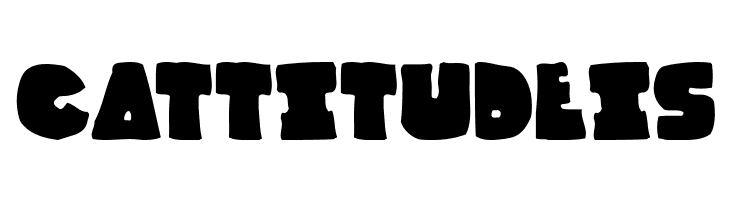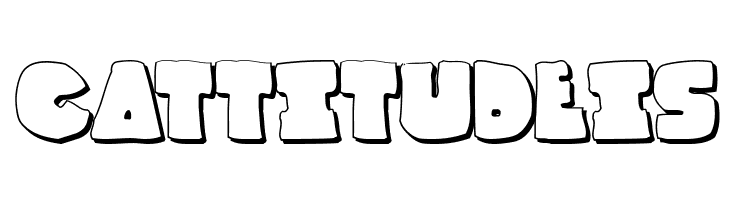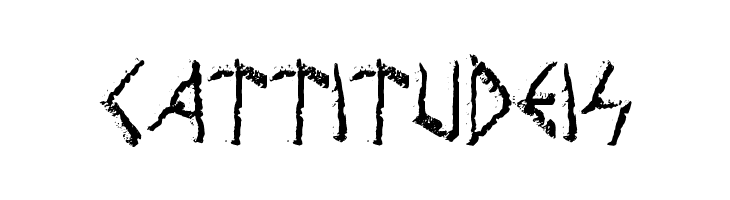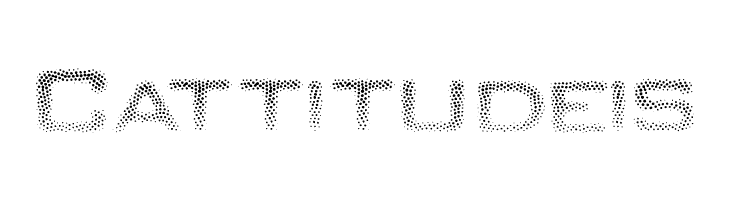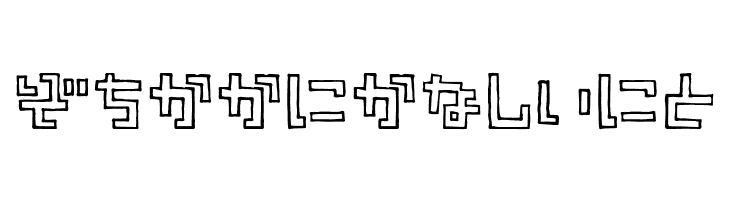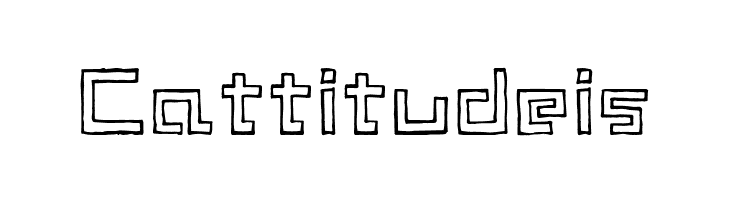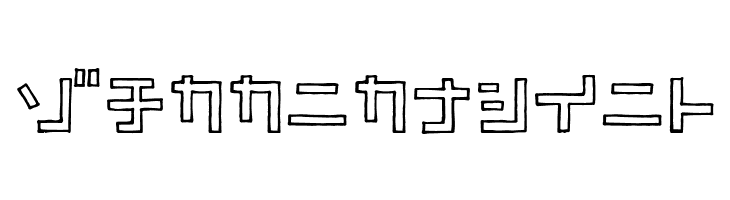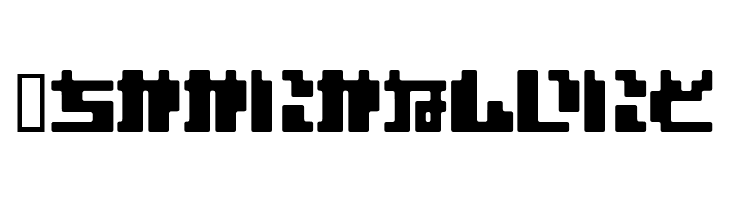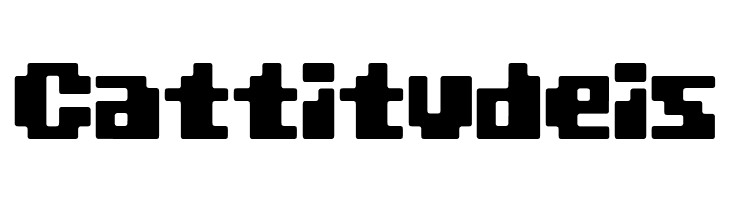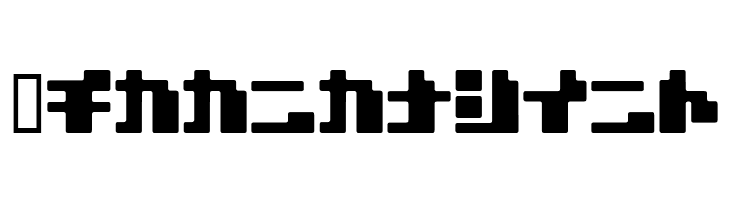
A bold, vintage-style font with thick, heavy strokes and a strong presence.
A pixelated, blocky font with a retro digital aesthetic.
A pixelated, retro-style font with a blocky, digital appearance.
A pixelated, blocky font with a retro digital style.
A bold, playful font with thick, rounded characters and a cartoonish style.
A bold, playful font with a shadow effect and rounded, chunky characters.
A geometric, hand-drawn font with a rustic, sketch-like appearance.
Outlined, geometric, hand-drawn style with playful, angular forms.
A geometric, hand-drawn font with bold outlines and a playful style.
A modern, rounded font with a futuristic and streamlined design.
A bold, modern stencil font with a futuristic and industrial design.
A bold, decorative font with intricate details and a modern flair.
A bold, playful font with rounded strokes and whimsical shapes.
A playful, hand-drawn font with bold, rounded characters and a whimsical style.
A bold, UFO-themed silhouette font with imaginative spacecraft designs.
Bold, italicized font with a futuristic and dynamic style.
A bold, italicized font with a 3D block effect and geometric design.
A chaotic, edgy font with jagged, distressed strokes.
A modern, dotted font with a textured and digital appearance.
A modern, dotted font with a digital and textured appearance.
A rugged, distressed font with a hand-drawn, textured appearance.
A whimsical, hand-drawn style font with playful, wavy strokes.
A bold, pixelated font with a digital, retro aesthetic.
A bold, geometric font with a modern, blocky style.
A bold, geometric font with a modern, industrial feel.
( Fonts by Maniackers Design - www.mksd.jp OFF SITE )
A bold, gothic-inspired font with sharp, angular edges and dramatic styling.
( Fonts by Maniackers Design - www.mksd.jp OFF SITE )
( Fonts by Cumberland Fontworks - http://www222.pair.com/sjohn/fonts.htm - S. John Ross )
A rugged, angular font with a hand-carved, tribal aesthetic.
( Fonts by Cumberland Fontworks - http://www222.pair.com/sjohn/fonts.htm - S. John Ross )
A rugged, distressed font with jagged edges and a bold presence.
( Fonts by Cumberland Fontworks - http://www222.pair.com/sjohn/fonts.htm - S. John Ross )
A rugged, hand-carved font with a wild, untamed aesthetic.
( Fonts by Maniackers Design - www.mksd.jp OFF SITE )
A modern, geometric font with a futuristic and uniform design.
An abstract, fragmented font with a modern, artistic style.
An abstract, hand-drawn font with geometric and calligraphic influences.
A bold, decorative font with playful, whimsical elements and a modern twist.